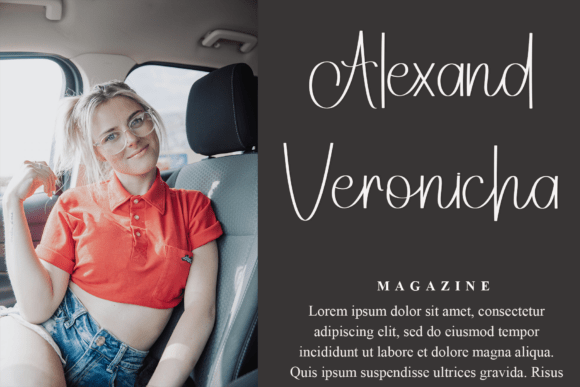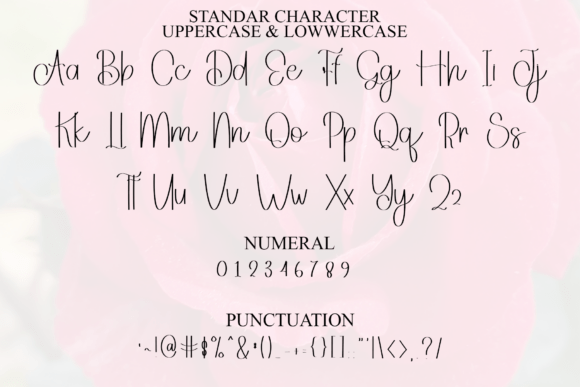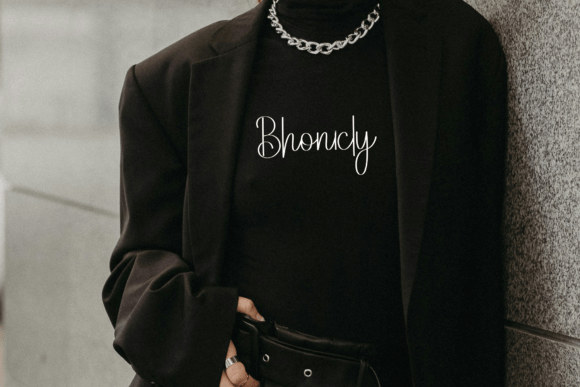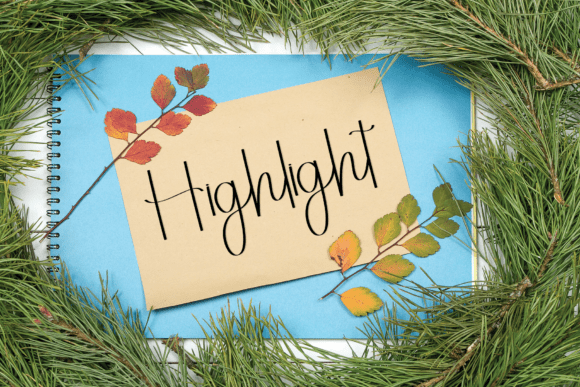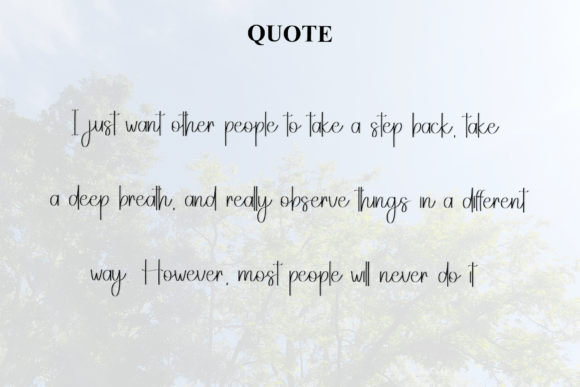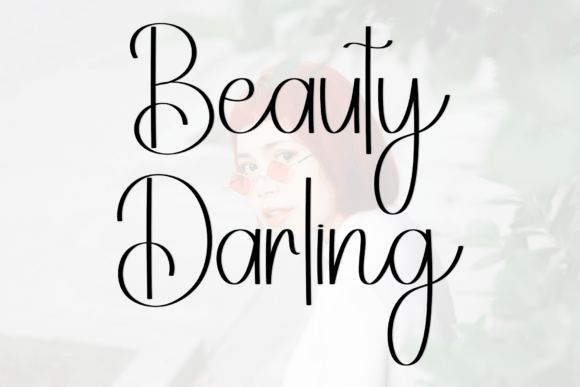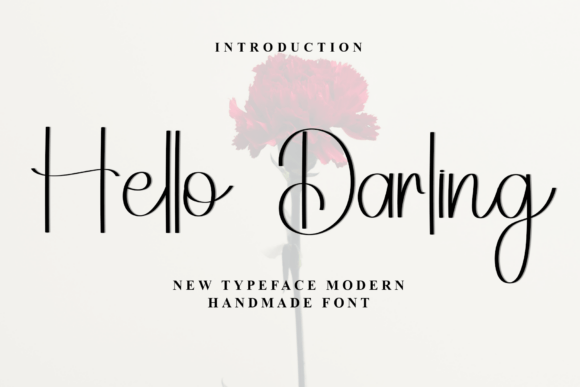
Hello Darling Font: Elevate Your Designs with a Unique and Eye-Catching Typeface
In the world of typography, a font can make all the difference in the success of a design project. With the right font, you can convey your message, evoke emotions, and capture the attention of your audience. If you’re a designer, crafter, or creative looking for a beautiful and versatile font to enhance your work, look no further than Hello Darling Font. In this article, we’ll explore the features, benefits, and uses of this stunning font, and why it’s a must-have for any creative project.
A Soft, Unique Touch: The Characteristics of Hello Darling Font
Hello Darling Font is a beautifully designed typeface with a soft, unique touch that sets it apart from other fonts. Its distinctive strokes give it a special character, making it meaningful and versatile for future use. The font’s natural and effortless style makes it perfect for a wide range of design projects, from crafts and DIY projects to digital designs and artistic creations.
Key Features of Hello Darling Font
- Unique and eye-catching design: Hello Darling Font boasts a distinctive and stylish design that will make your projects stand out.
- Soft and natural style: The font’s soft and natural style makes it perfect for designs that require a personal touch.
- Variety of characters: The font comes with a range of characters, making it ideal for creative projects that require a high level of customization.
Hello Darling Font is perfect for designers, crafters, and creatives who want to add a personal touch to their projects. Whether you’re working on a digital design, crafting a handmade card, or creating a unique piece of art, this font is sure to impress. Its versatility and compatibility make it easy to use in various applications, including:
- Digital designs: Use Hello Darling Font in your digital designs, such as brochures, posters, and social media graphics.
- Crafts: Add a personal touch to your handmade crafts, such as cards, scrapbook pages, and DIY projects.
- Artistic creations: Use the font in your artistic creations, such as paintings, drawings, and mixed media projects.
Benefits of Using Hello Darling Font
Using Hello Darling Font in your design projects and crafts offers a range of benefits, including:
- Enhanced visual appeal: The font’s unique and eye-catching design will make your projects more visually appealing.
- Increased creativity: The font’s versatility and range of characters will inspire your creativity and help you think outside the box.
- Professional results: With Hello Darling Font, you can achieve professional-looking results, even if you’re a beginner.